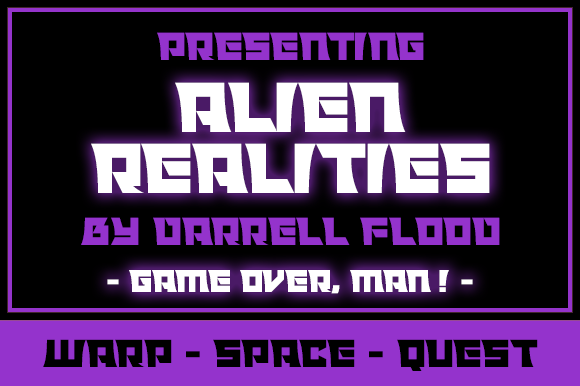
Unleash Your Creativity with Alien Realities Font
Are you tired of using the same old fonts for your creative projects? Look no further! Alien Realities Font is a bold, chunky charactered display font that is sure to take your designs to the next level. Its futuristic yet simple style makes it versatile and fitting for a wide range of creative ideas.
What is Alien Realities Font?
Alien Realities Font is a display font that is designed to make a statement. Its bold and chunky characters are perfect for creating eye-catching headlines, titles, and captions. The font’s futuristic style is reminiscent of sci-fi movies and video games, making it ideal for projects that require a touch of otherworldliness.
Key Features of Alien Realities Font
- Bold and Chunky Characters: The font’s bold and chunky characters make it perfect for creating eye-catching headlines and titles.
- Futuristic Style: The font’s futuristic style makes it ideal for projects that require a touch of otherworldliness.
- Simple and Versatile: Despite its bold style, the font is simple and versatile, making it fitting for a wide range of creative ideas.
- Easy to Read: The font is easy to read, even at small sizes, making it perfect for use in a variety of applications.
Uses of Alien Realities Font
Alien Realities Font is perfect for a wide range of creative projects, including:
- Graphic Design: Use the font to create eye-catching posters, flyers, and brochures.
- Branding: Use the font to create bold and memorable logos and brand identities.
- Web Design: Use the font to create futuristic and modern website headers and titles.
- Video Production: Use the font to create titles and captions for sci-fi movies and video games.
- Crafting: Use the font to create unique and personalized crafts, such as signs, banners, and iron-on designs.
Tips for Using Alien Realities Font
Here are some tips for getting the most out of Alien Realities Font:
- Use it Boldly: The font is designed to be used boldly, so don’t be afraid to make it big and eye-catching.
- Experiment with Colors: The font looks great in a variety of colors, so experiment with different colors to find the one that works best for your project.
- Pair it with Other Fonts: The font pairs well with other fonts, so try pairing it with a simpler font to create contrast and visual interest.
Alien Realities Font is a bold, chunky charactered display font that is perfect for creative projects that require a touch of otherworldliness. Its futuristic yet simple style makes it versatile and fitting for a wide range of creative ideas. With its bold and chunky characters, easy readability, and versatility, Alien Realities Font is sure to become a favorite among designers and crafters.